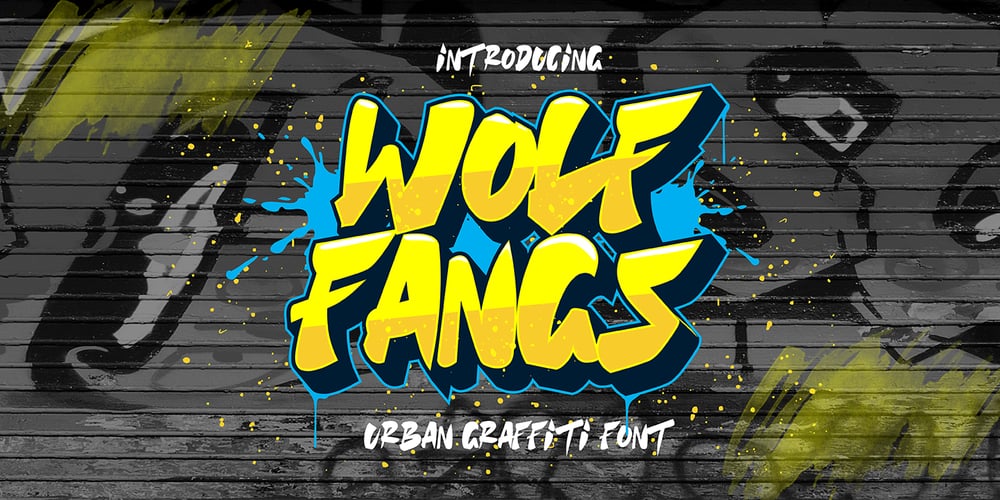
Wolf Fangs Graffiti Font Family was designed by Sipanji and published by Sipanji21. Wolf Fangs Graffiti contains 1 styles and family package options. Wolf Fangs is an incredibly unique and chunky lettered display font with graffiti basic feel, its suitable for logotype, design grafics, e-sport, apparel, wall art, etc. Add this font to your favorite creative ideas and notice how it makes them come alive!